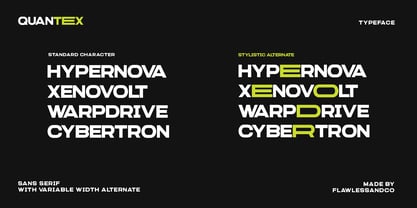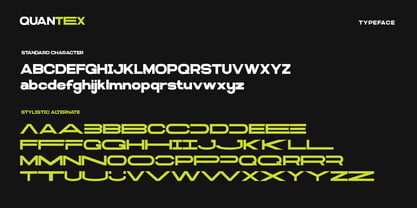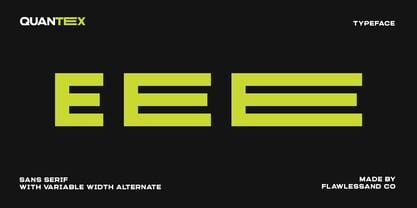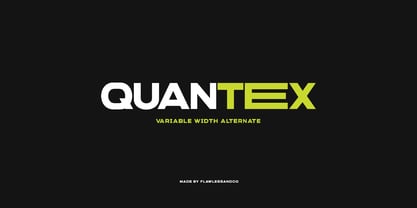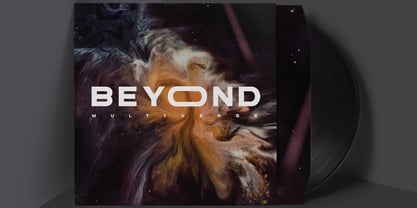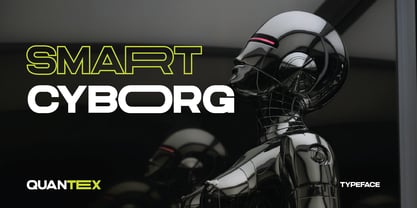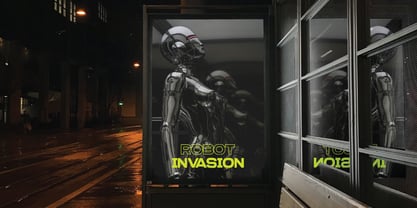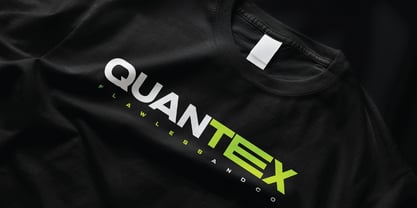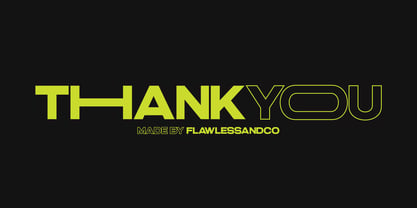
Quantex
by Flawlessandco
The Quantex Font Family was designed by Achmad Yani and published by Flawlessandco. Quantex contains 1 styles. More about this family
Quantex is a sleek and modern sans serif futuristic font designed for innovation-driven designs. With its clean lines and sharp angles, this typeface exudes a high-tech and forward-thinking aesthetic. Suitable for sci-fi posters, technology branding, gaming interfaces, futuristic advertisements, and digital projects, Quantex brings a bold and cutting-edge look to any creative work. Features : Multilingual, Uppercase alphabet A-Z, Lowercase alphabet a-z, Numbers 0-9, Some punctuation, Alternates & Ligatures NOTE: For all the characters are also available, accessible in the Adobe Illustrator Glyphs Panel, or in Adobe Photoshop Character Open Type Panel. If you need help, just write me! Thanks so much for checking out my shop!
Designers: Achmad Yani
Current Foundry: Flawlessandco